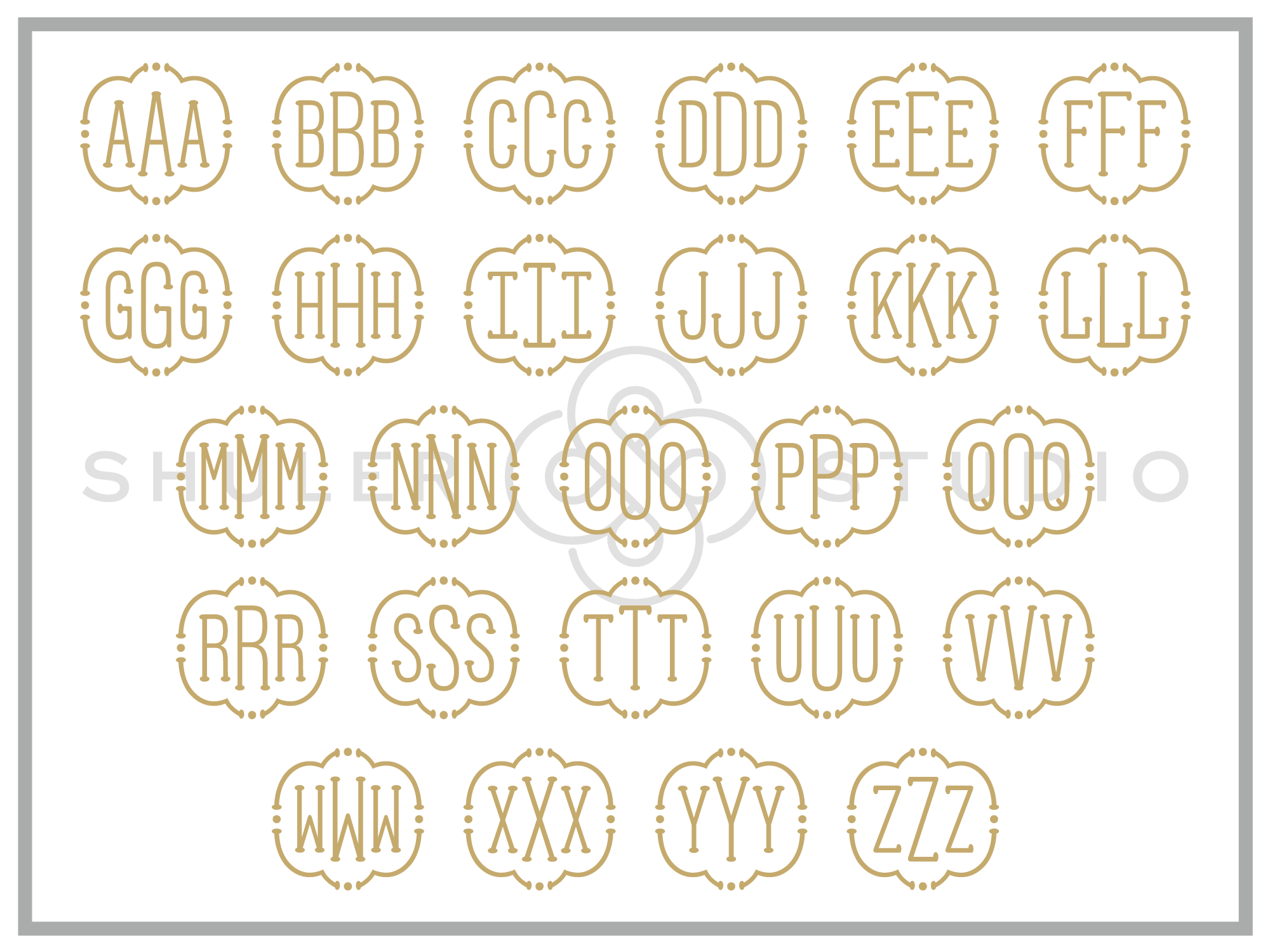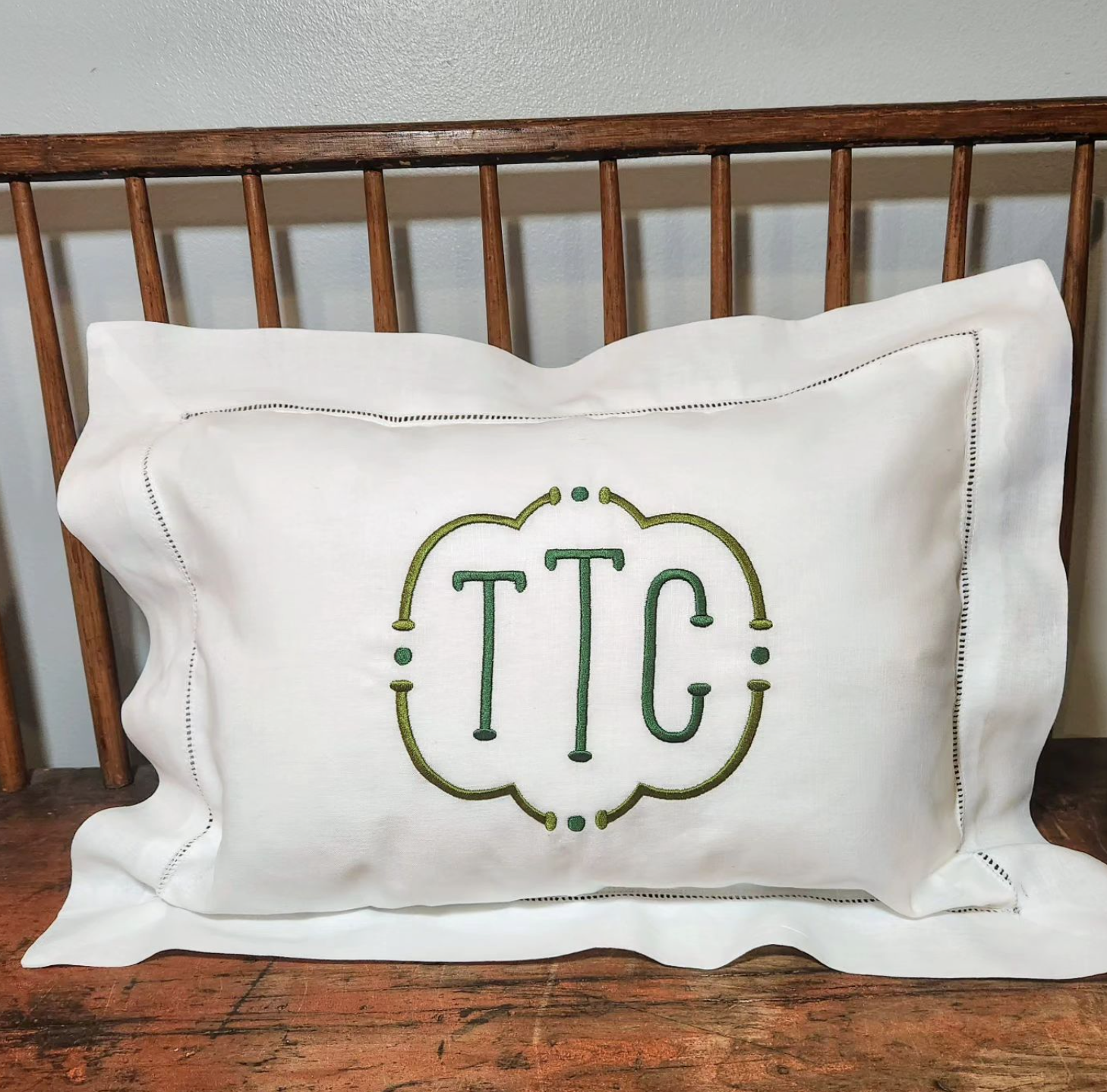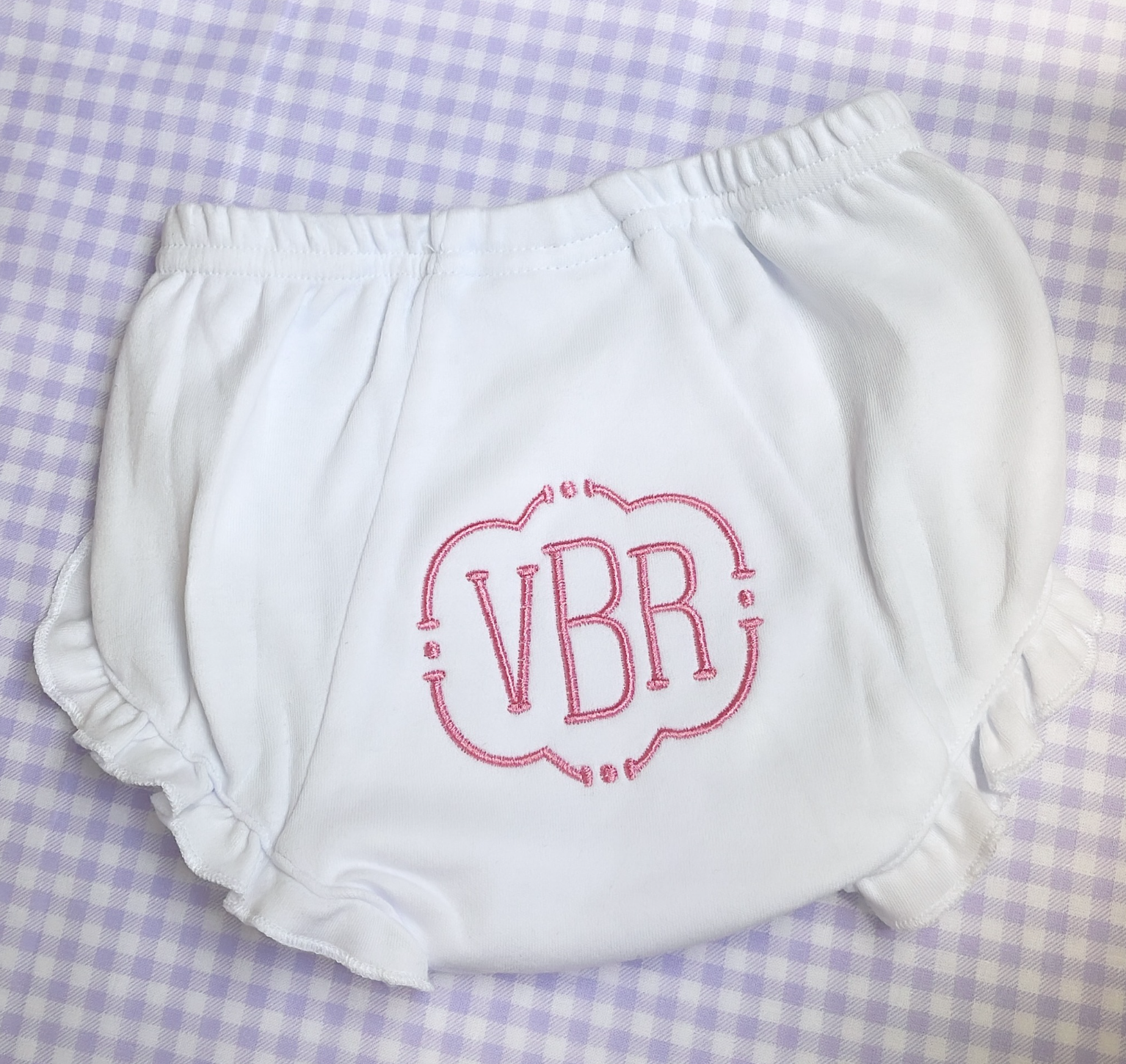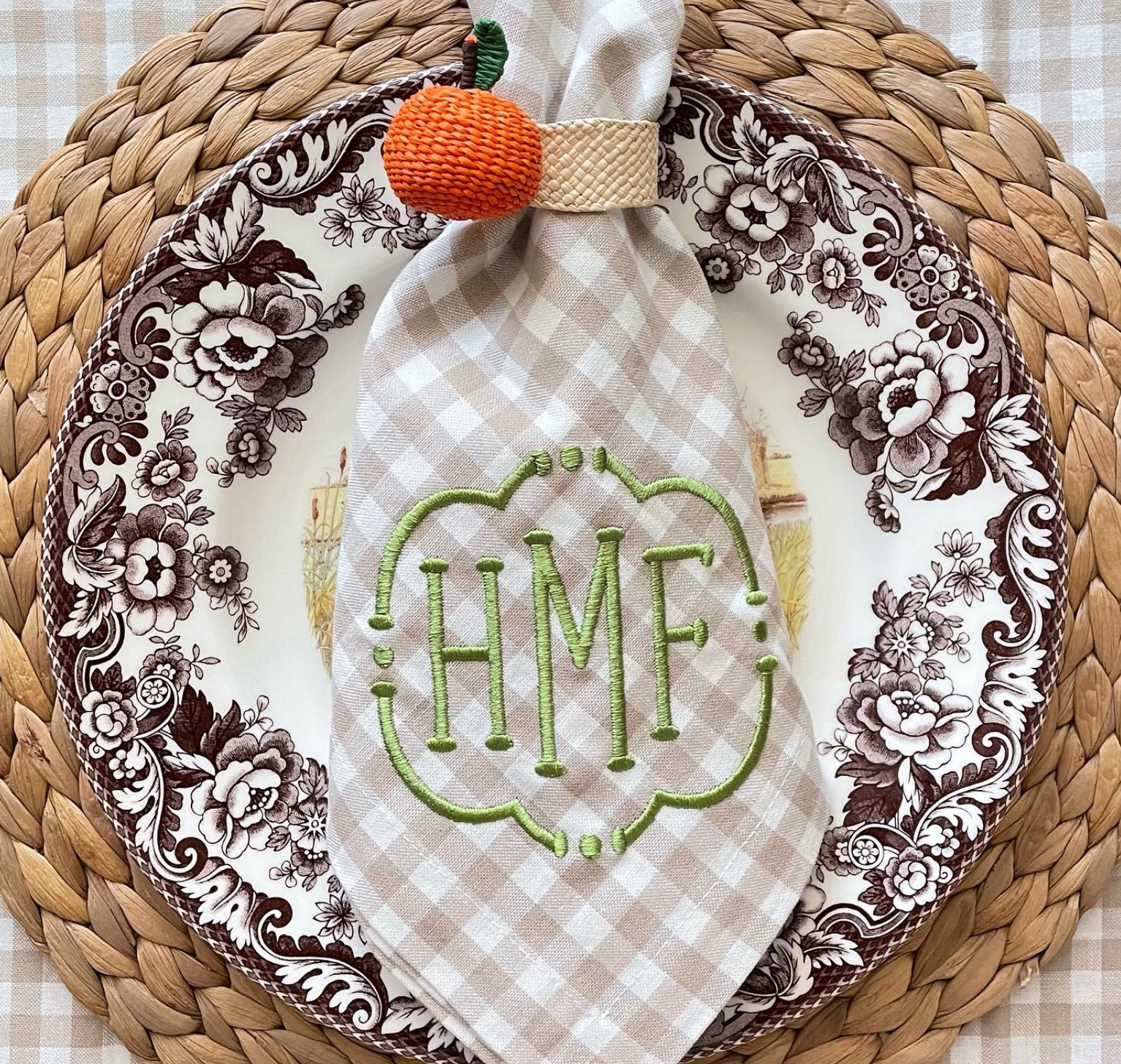
Monogram Court Font for Embroidery
Monogram Court is a lovely way to display 2, 3, or 4 letter designs in a beautiful frame.
Soft serifs add a touch of personality and charm. Also included are our bespoke frames which surround the letters for a beautiful and inviting look.
Perfect for embroidery, the careful attention in the digitization of each design makes personalization unique and beautiful!